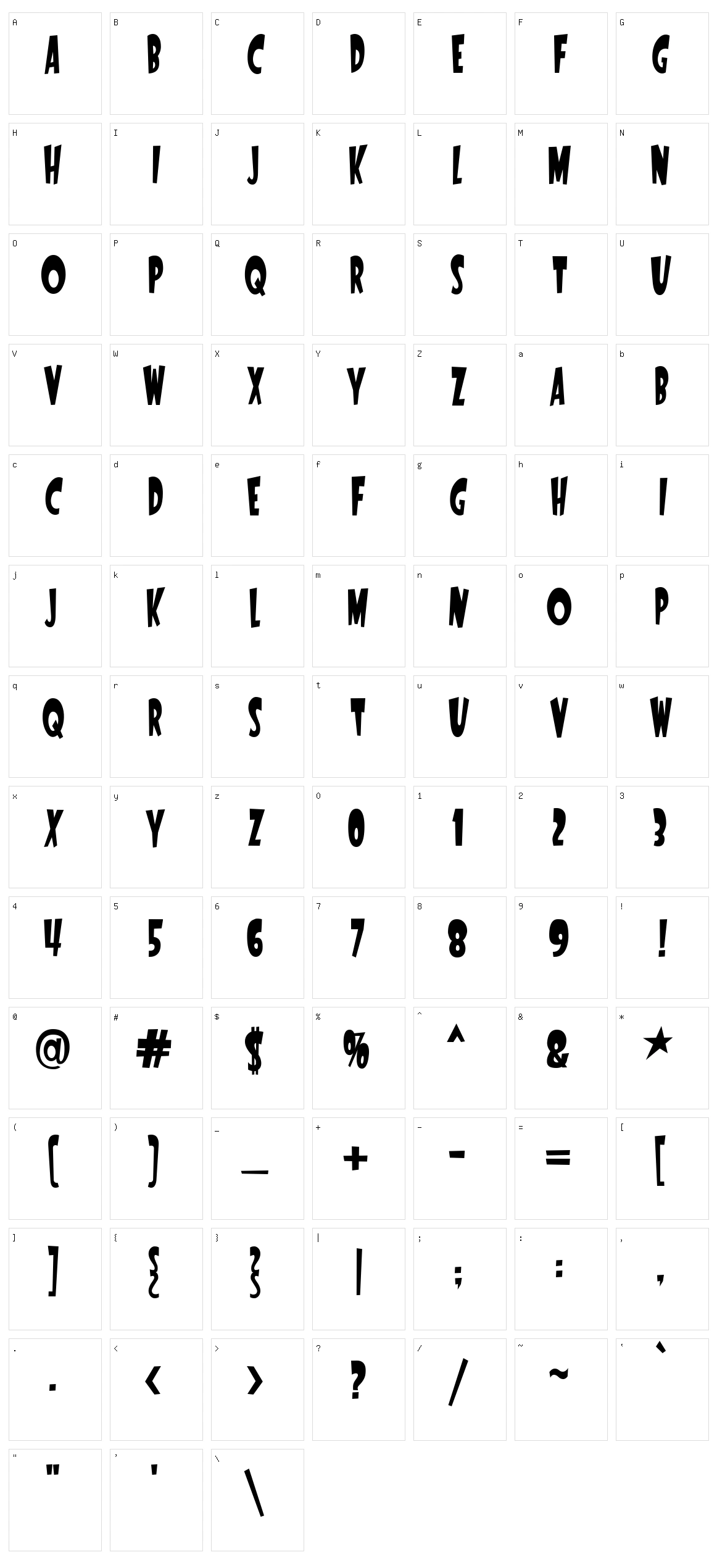
The free font Startling is carefully designed by Gaut Fonts, showcasing a thoughtful balance of creativity and usability and falls under the Cartoon font style. When you download the ZIP file, it contains only 69.49 KB of font files, making it lightweight and quick to download. Please review the license details below to understand permitted usage and distribution rights. If license information is not available, we recommend using this font for personal projects only or contacting the author directly for commercial usage permissions.